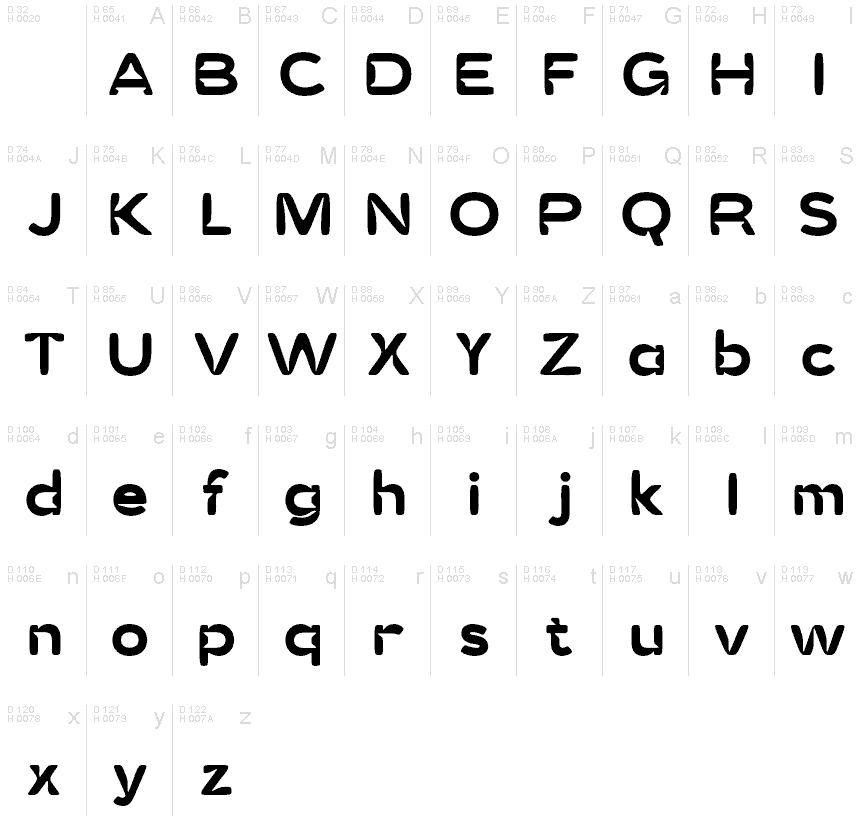
CSFeistyDrawn-Regular Demo
CS Feisty Drawn font by Craft Supply Co. is a modern sans serif with a charming approachable presence. An expanded font with geometric letter placements, it commands attention with little to no effort. This friendly and approachable character makes it suitable for all contemporary applications in print and digital media.
CS Feisty Drawn Demo